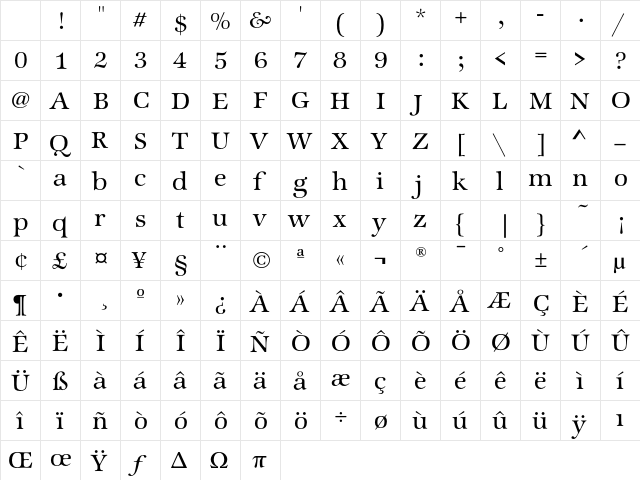
Complete ZapfInternationalEF-Medium Regular glyph index. Displaying only characters natively supported by ZapfInternationalEF-Medium Regular font.
ZapfInternationalEF-Medium is a composed and adaptable typeface that performs quietly and consistently across a wide range of design contexts.